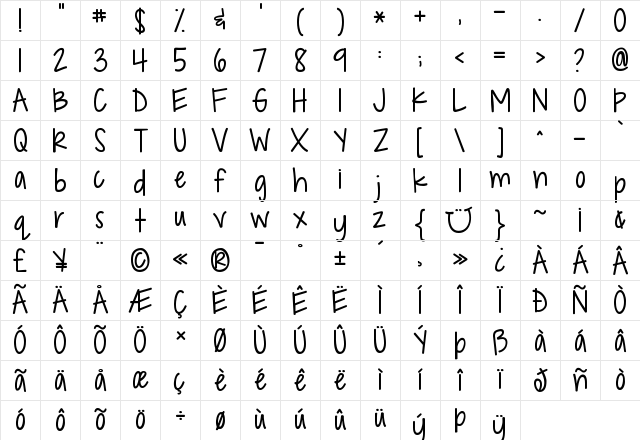
Complete KG Drops of Jupiter Regular glyph index. Displaying only characters natively supported by KG Drops of Jupiter Regular font.
KG Drops of Jupiter is a composed and adaptable typeface that performs quietly and consistently across a wide range of design contexts.